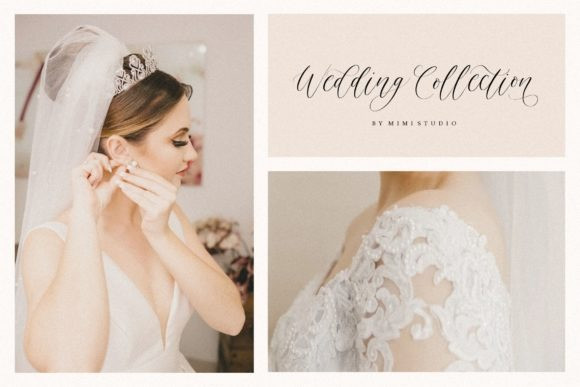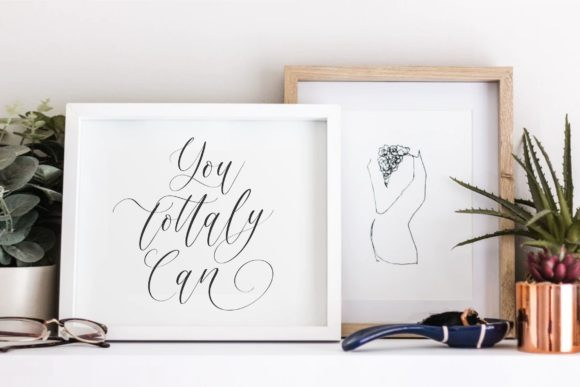
Ambrasto Modern Script Font
Introducing Ambrasto Modern Script Font is inspired by handwritten letters and a combination of tenderness and beauty
Feel Free to explore your imagination. Can be used for various purposes. such as headings, signature, logos, Event, Wedding, quote, Ads, signage, posters, badges, etc.